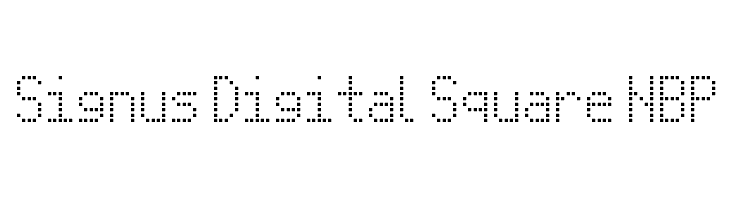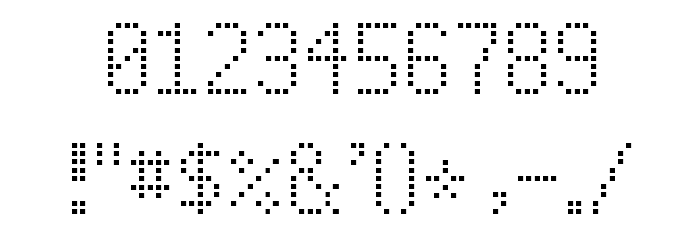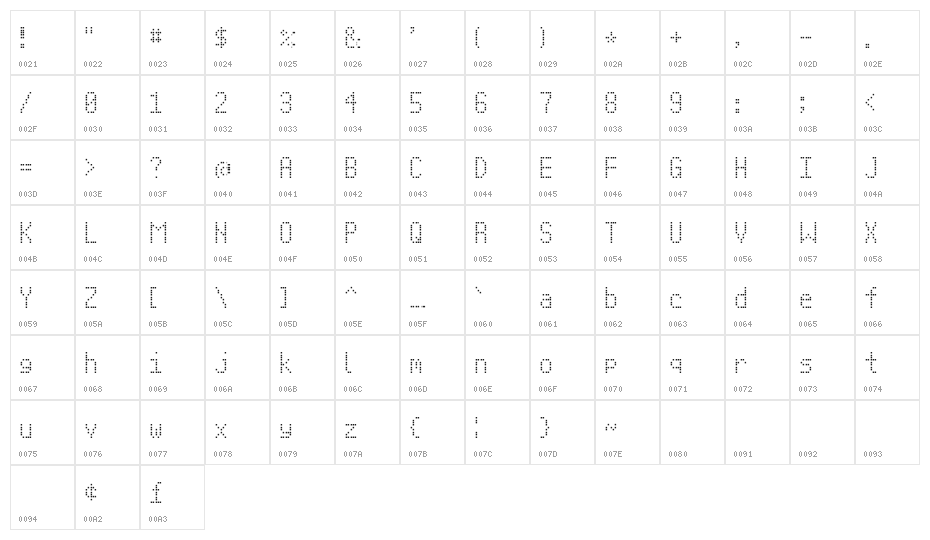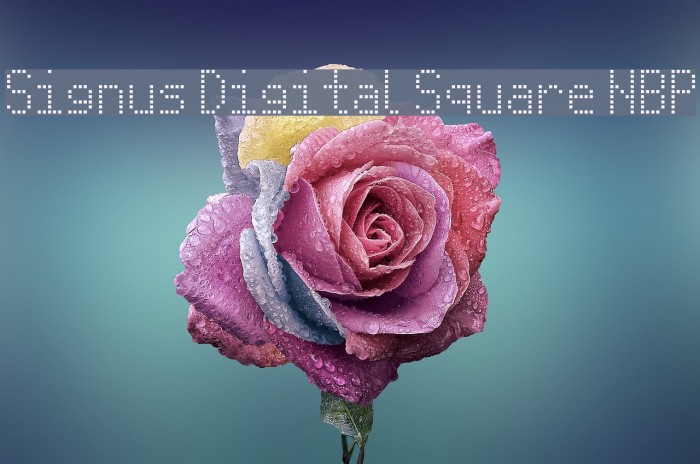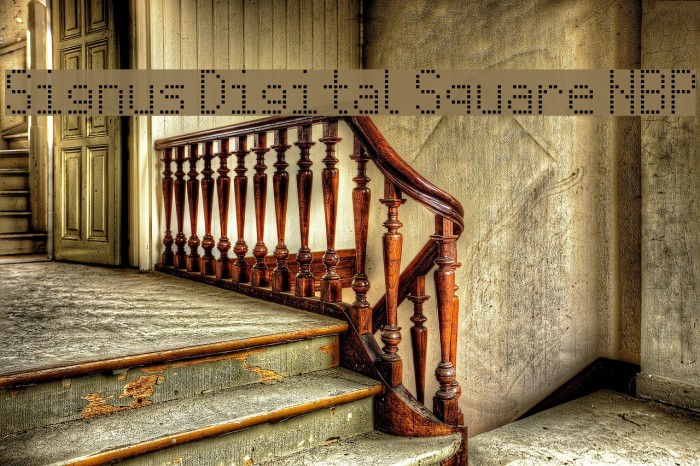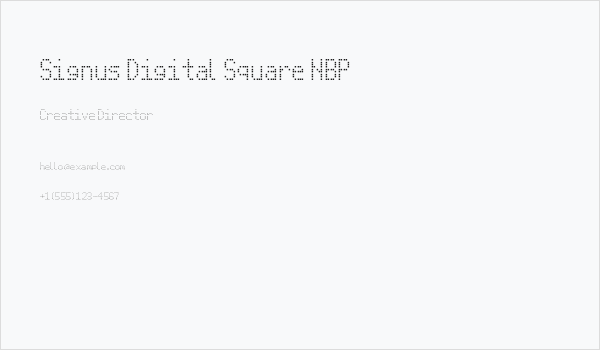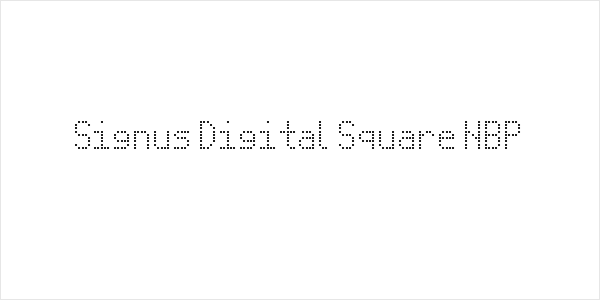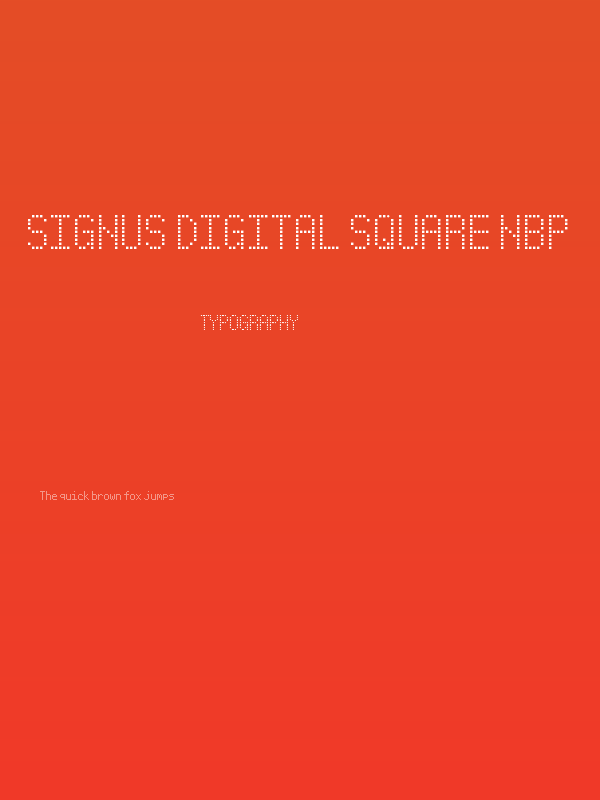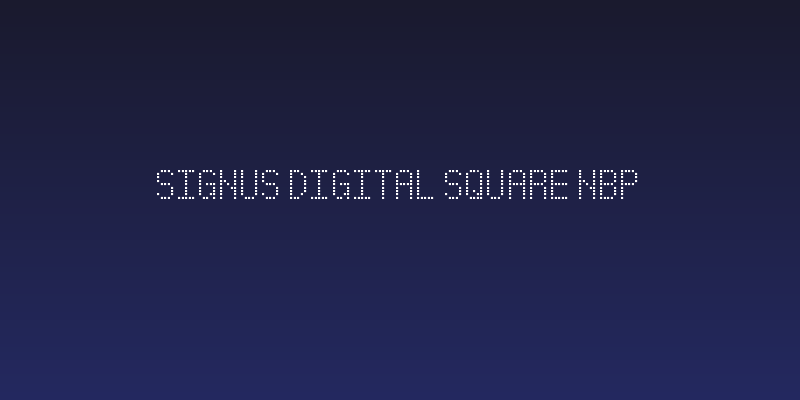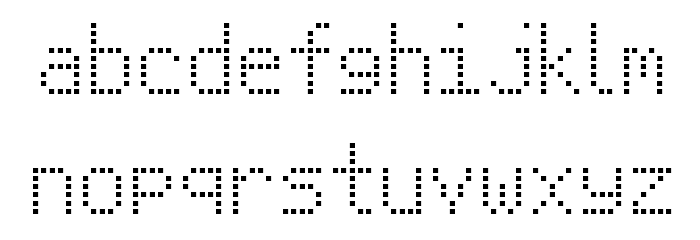
Signus Digital Square NBP Font
Signus Digital Square NBP Description
This font features a digital, pixelated design reminiscent of early digital displays and dot matrix printers. Each character is constructed from a grid of small, evenly spaced dots, creating a distinct, retro-futuristic aesthetic. The uniformity of the dots gives the font a monospaced appearance, although it is not strictly monospaced. The characters are clear and legible, with a geometric precision that emphasizes a technological feel. This style is particularly effective for conveying a sense of digital or electronic themes, making it ideal for projects that aim to evoke nostalgia for early computing or futuristic concepts.
Overall StyleRetro-Futuristic
Use CaseHeadlines, Logos, Digital Displays
Proposed ProjectsIdeal for digital-themed projects, retro gaming interfaces, tech-related branding, and sci-fi posters.